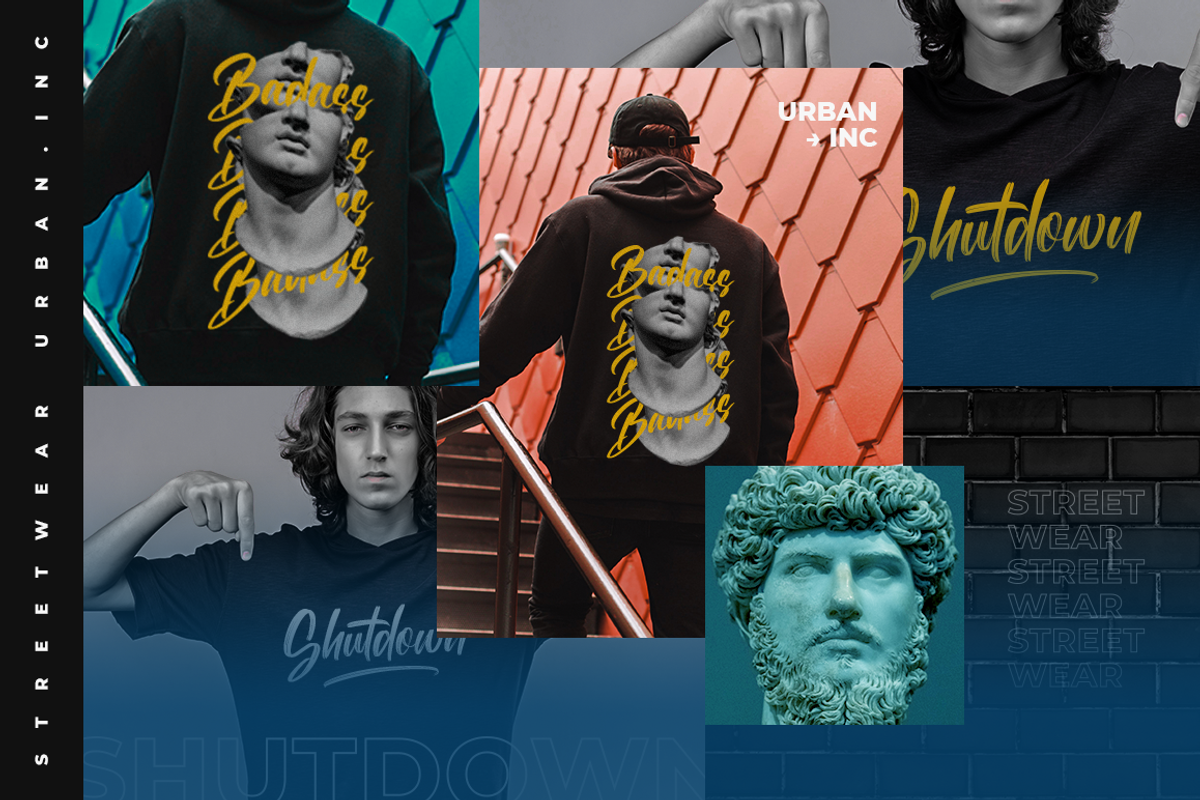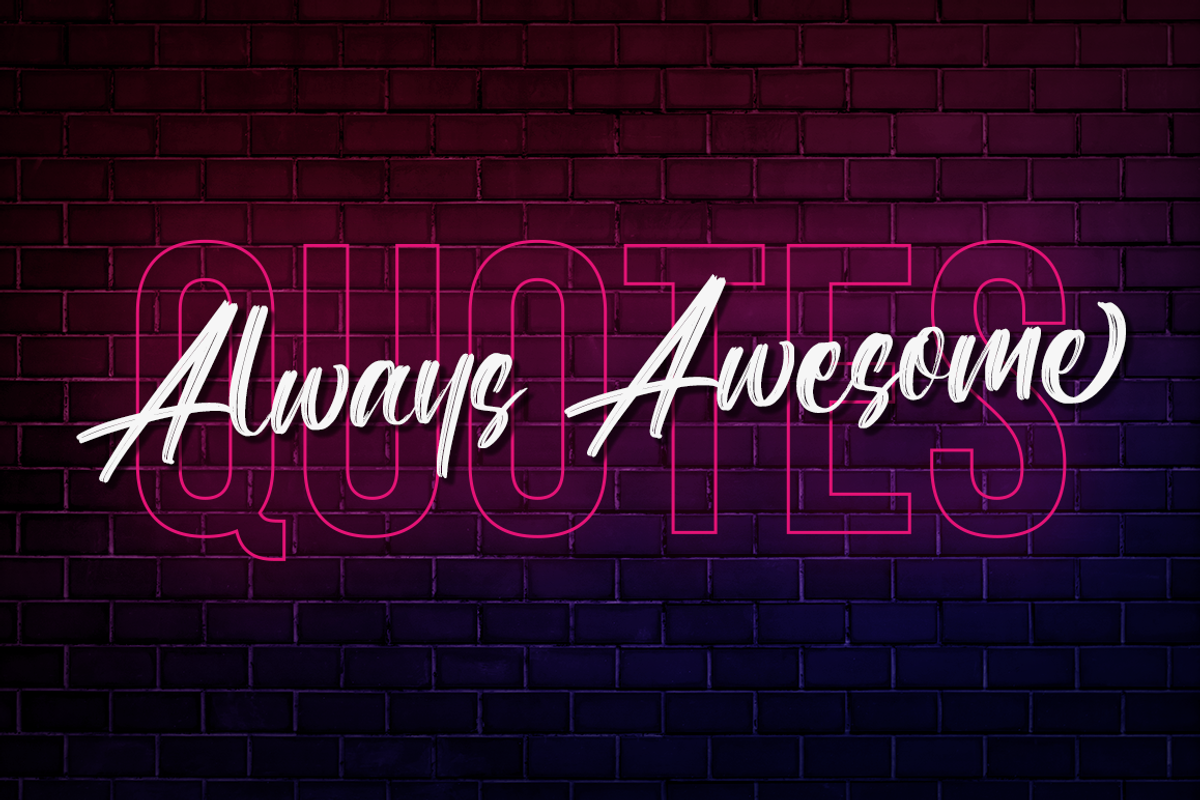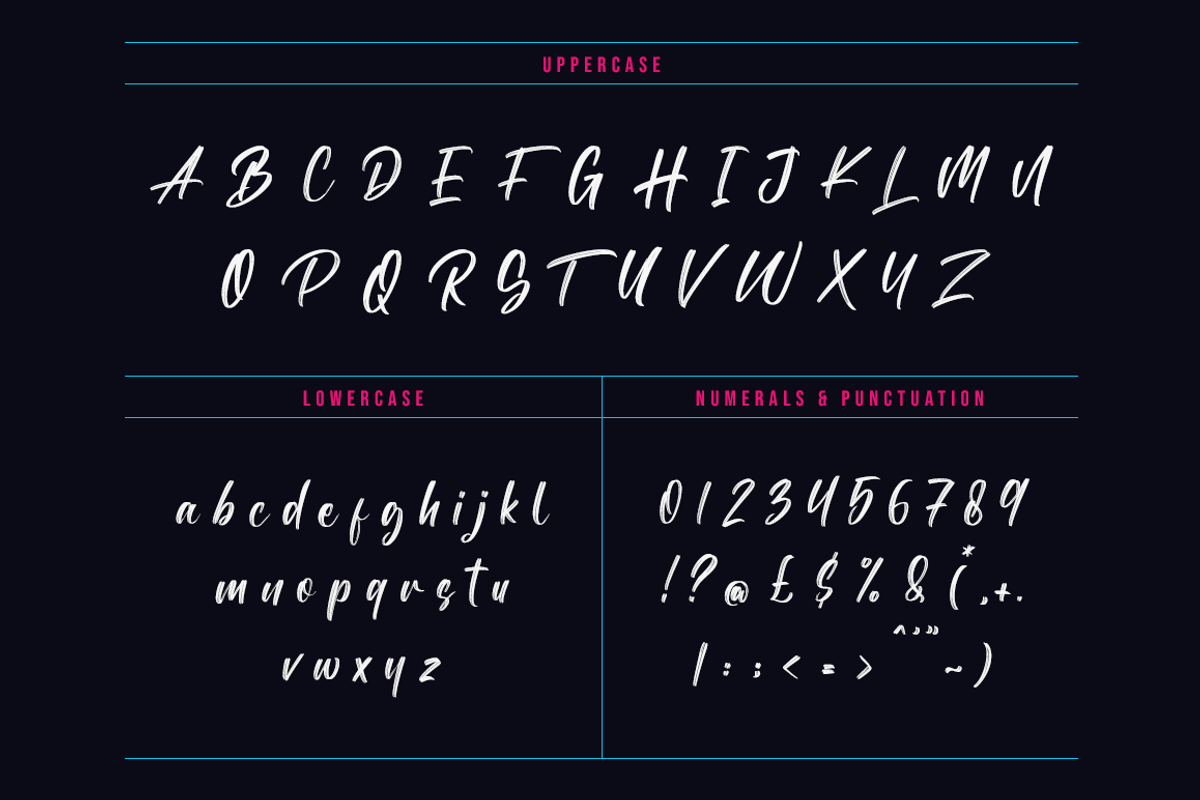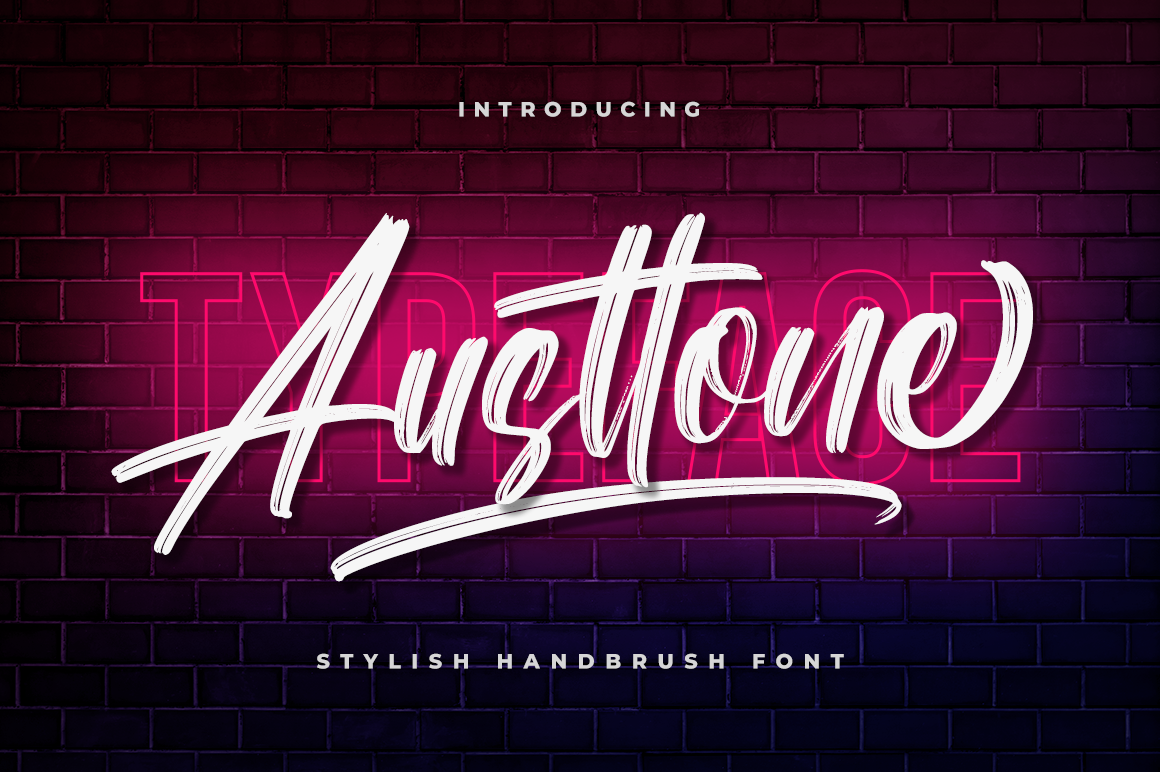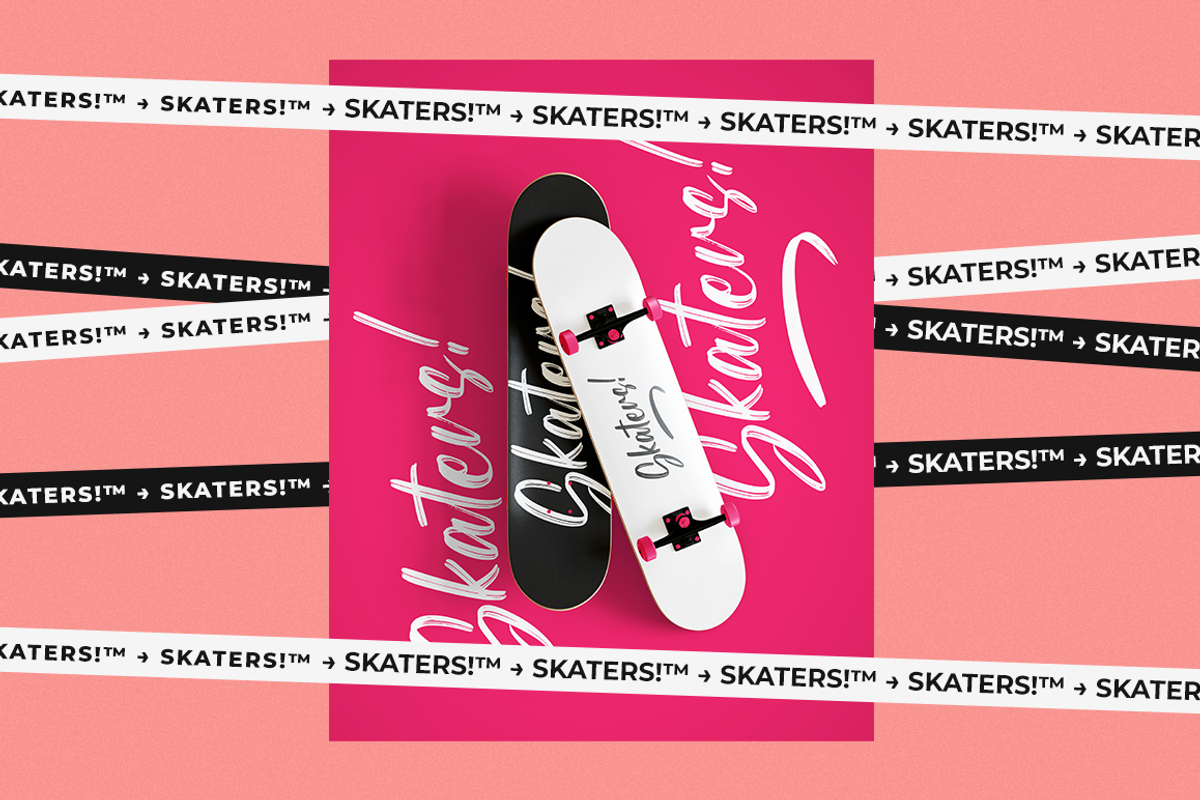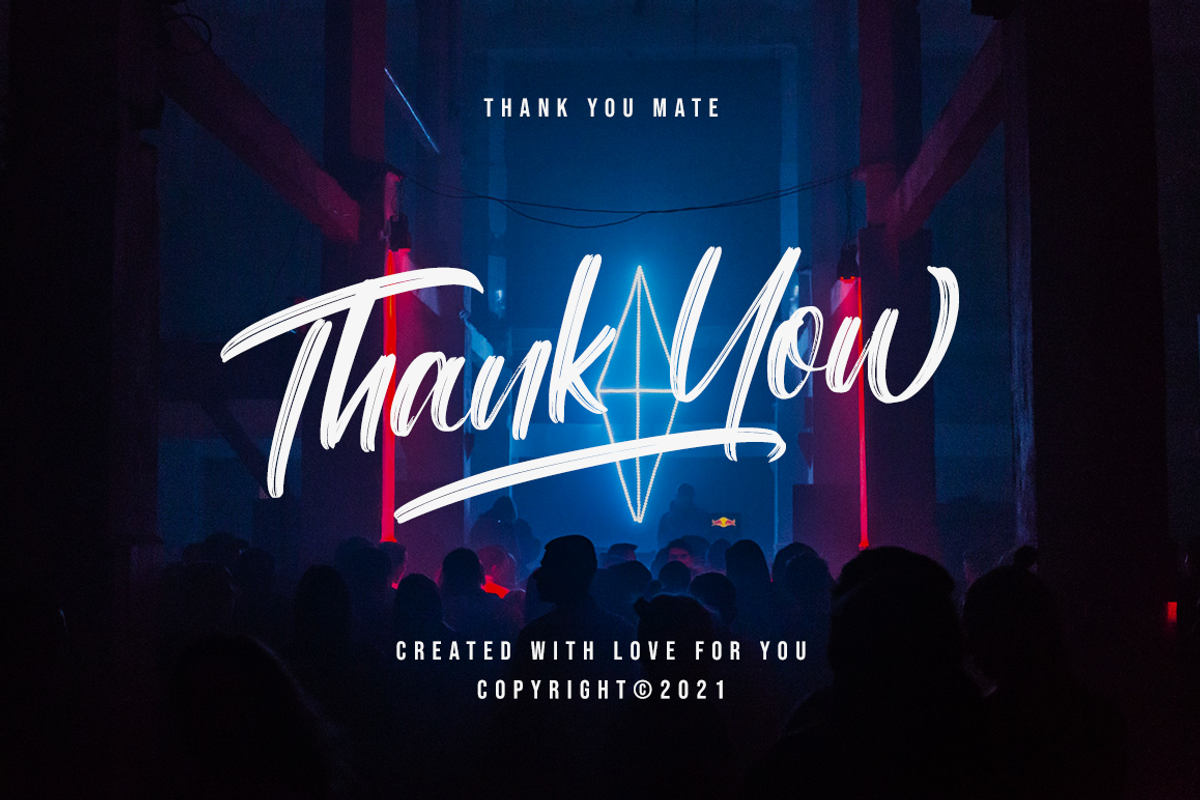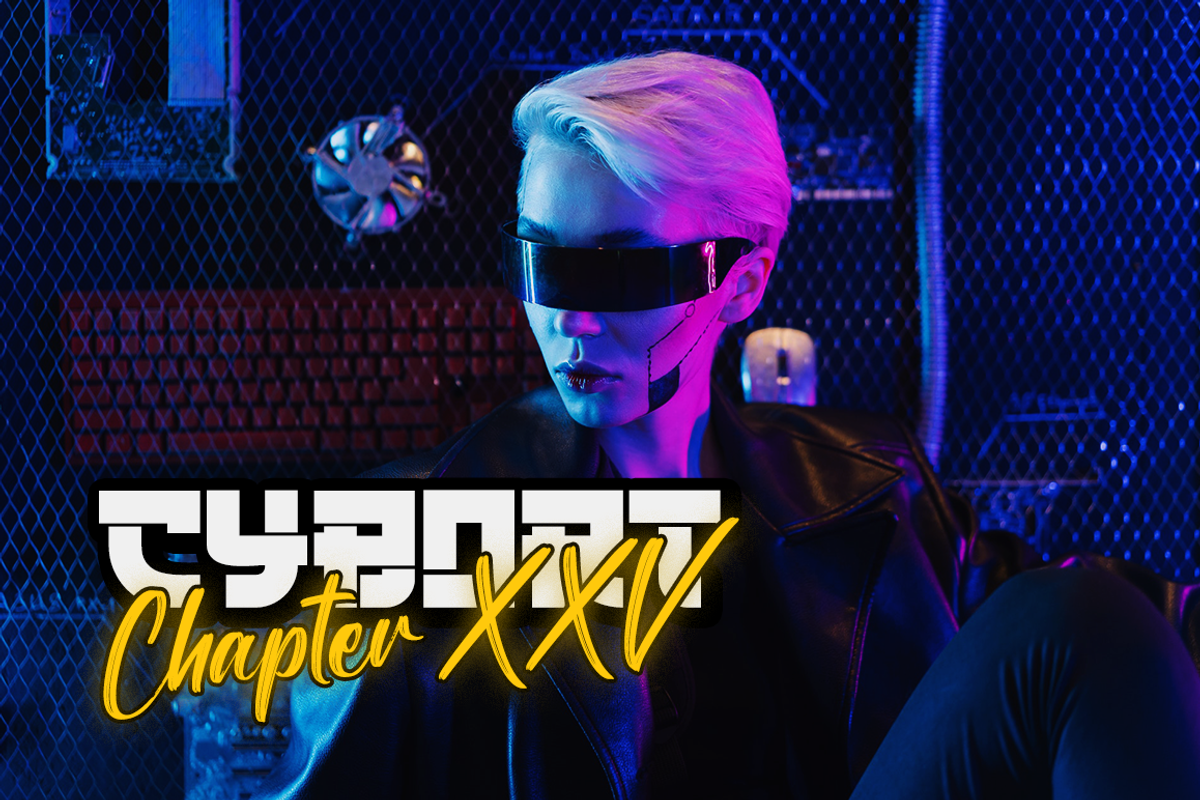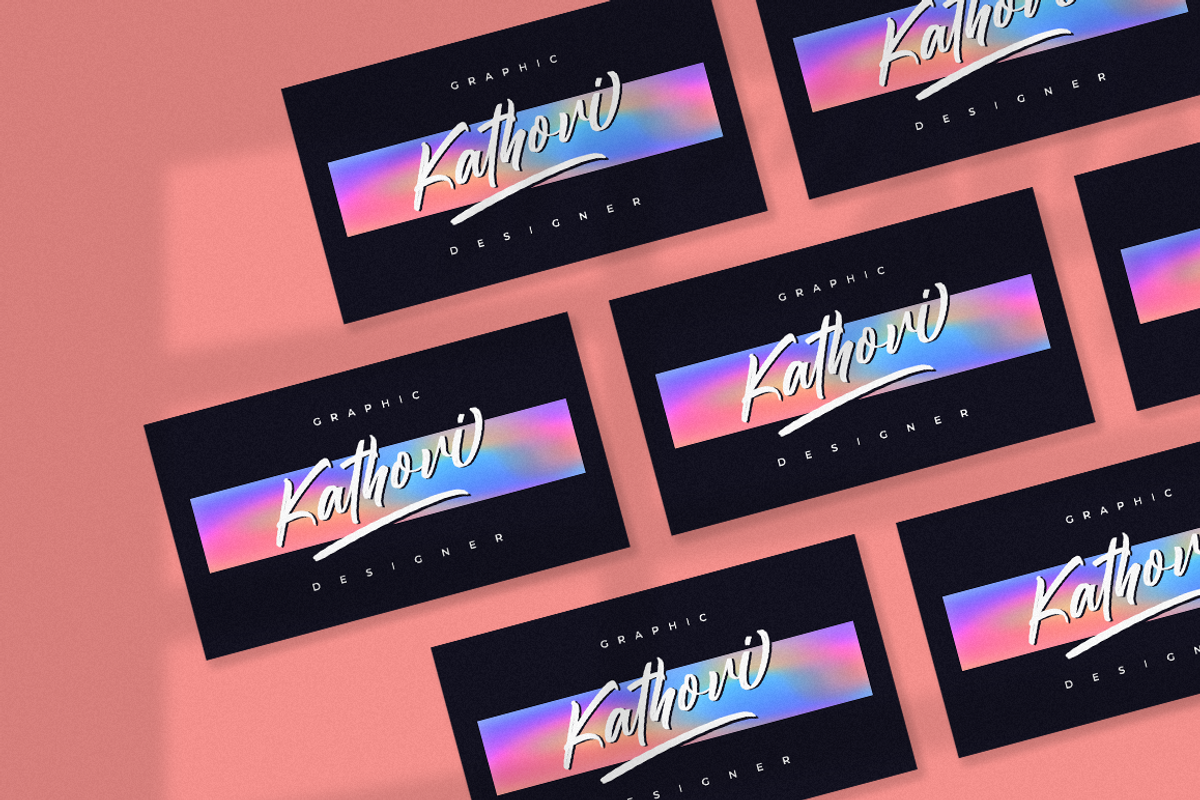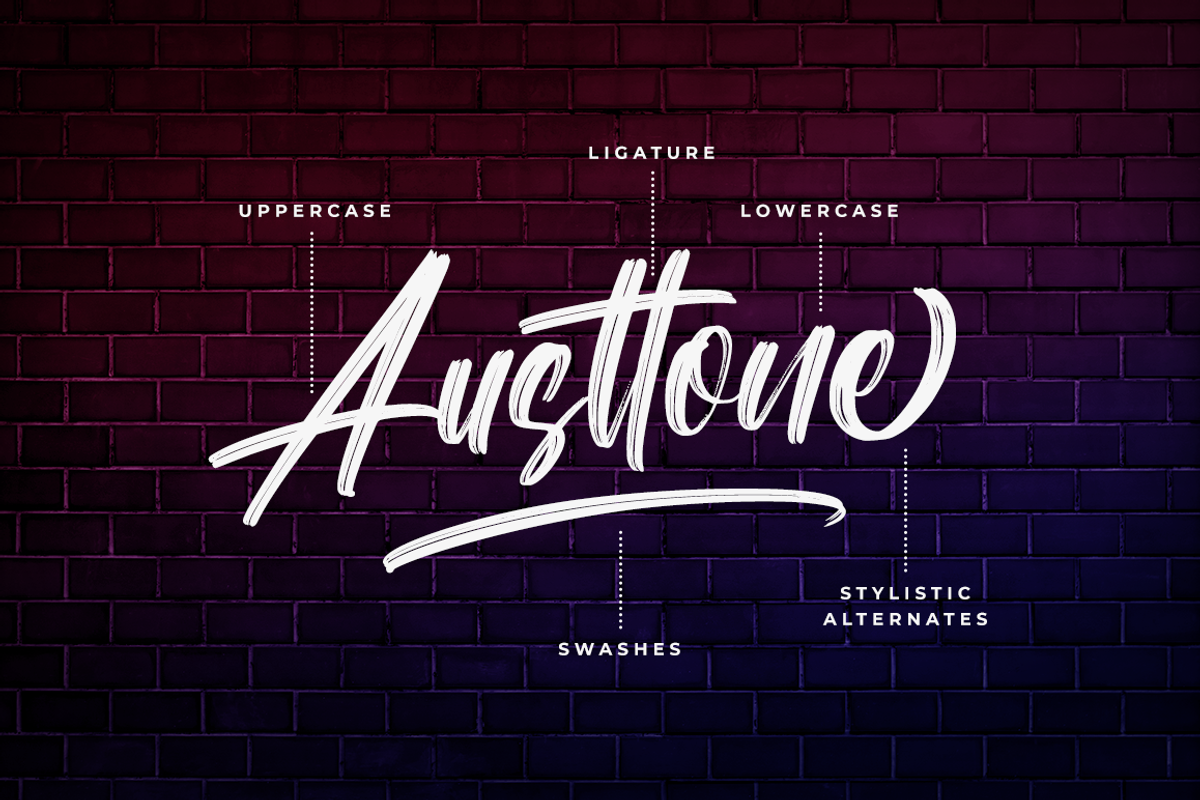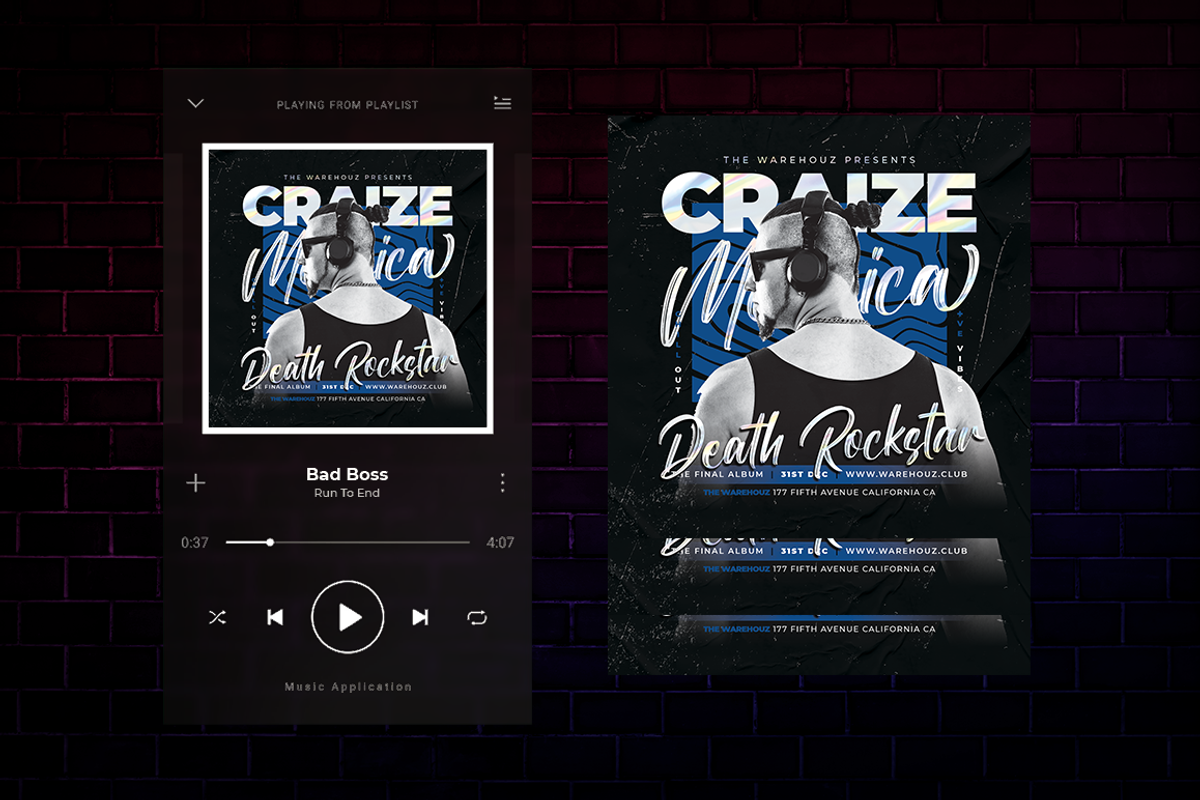
Austtone - A Modern Brush Font
Austtone is a unique brush font, perfect for use in modern design projects. This font has a slightly aggressive edge, and works well in displays for use in digital media.